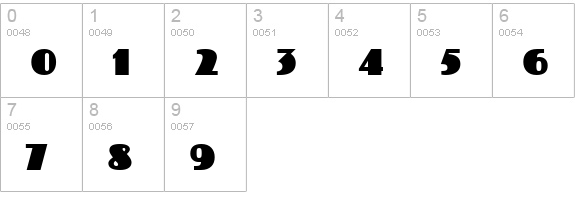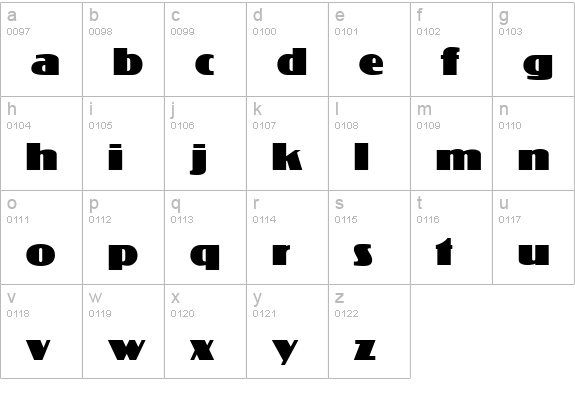
Kudzu Font Details
The Kudzu font is a modern and stylish typeface that exudes sophistication and elegance. With its sleek lines and sharp edges, Kudzu is perfect for creating eye-catching designs that demand attention. This versatile font is suitable for a wide range of projects, from branding and advertising to packaging and web design. One of the best things about the Kudzu font is that it is completely free to download. Yes, you read that right - you can get your hands on this amazing font at no cost at all. Simply head over to FontsMarket.com and start using Kudzu in your projects today! Whether you're a designer looking to add a touch of class to your work or a business owner wanting to elevate your brand, the Kudzu font is the perfect choice. Download it now and let your creativity soar with this fantastic free font!